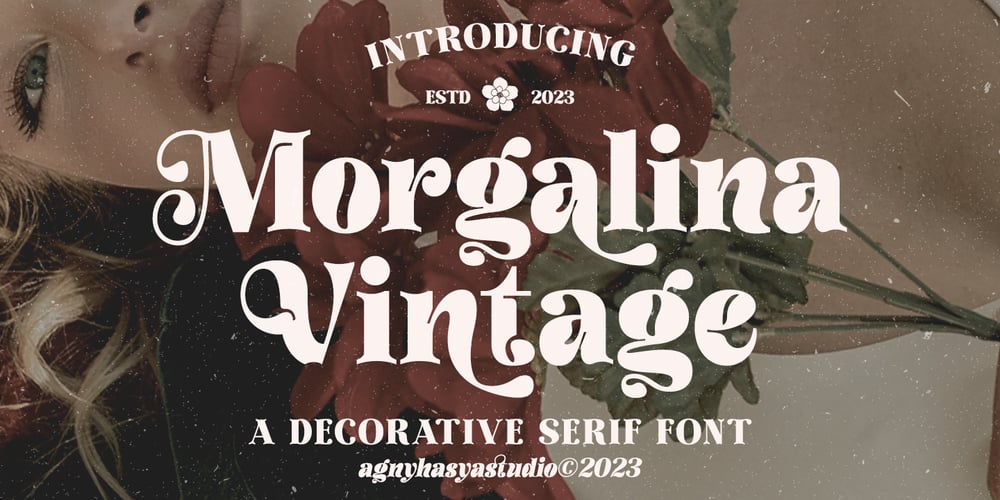
Morgalina Vintage
Morgalina Vintage font
Morgalina Vintage Font Family was designed by Firman Maulana and published by Agny Hasya Studio. Morgalina Vintage contains 2 styles and family package options. Morgalina Vintage Is a Serif Display Font With a Retro Vintage Style Bold Typeface, Modern Classic Yet Decorative. It Comes in 2 (Two) Styles (Regular and Italic) Including Slants, and Is Created With Stylistic Alternatives and Ligatures.Featured With Uppercase and Lowercase, Numeral and Punctuation, Multilingual Support, and Opentype Features.Perfect for Your Design Projects Like Logos, Branding, Advertising, Product Designs, Stationery, Magazine Designs, Book/Cover Title Designs, Photography, Art Quotes, Wedding Designs, Fashion Designs, Special Events, Labels, Product Packaging, and More.